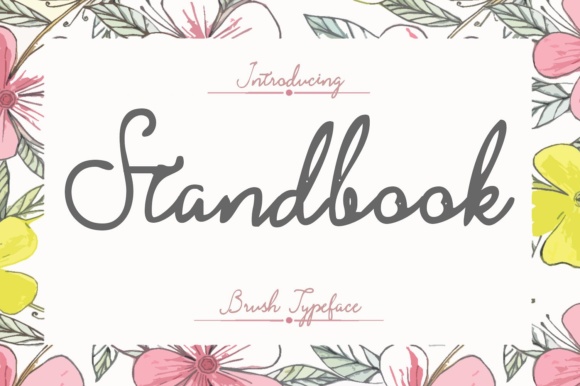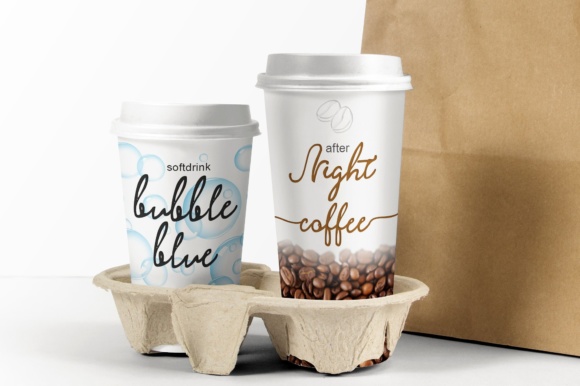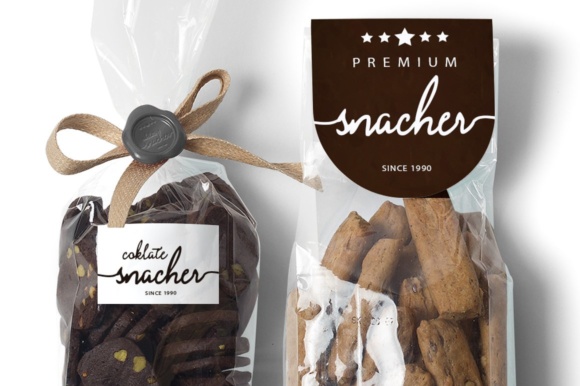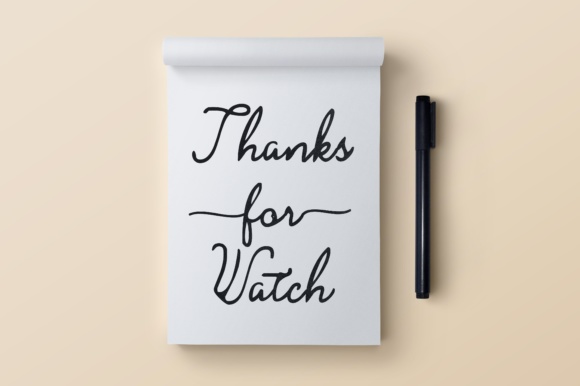
Stand Book Font
About Stand Book Font
StandBook is the perfect typeface to make your text stand out. Stand Book is perfect for logos, quotes, invitations, business cards, product packaging, headers and many other designs.